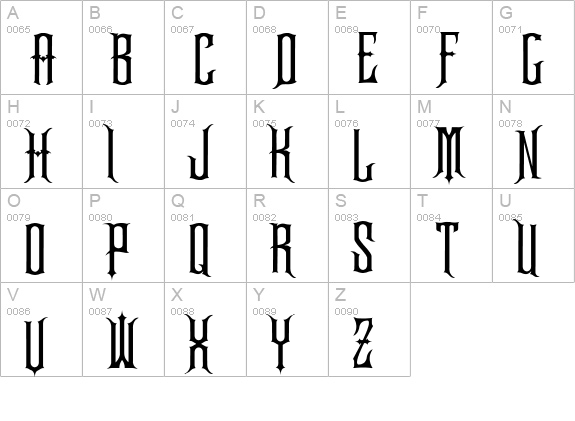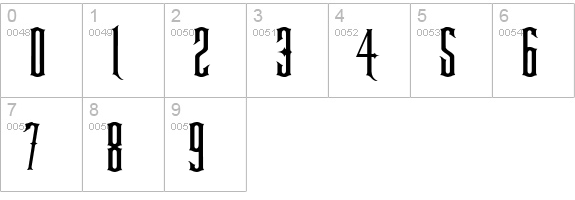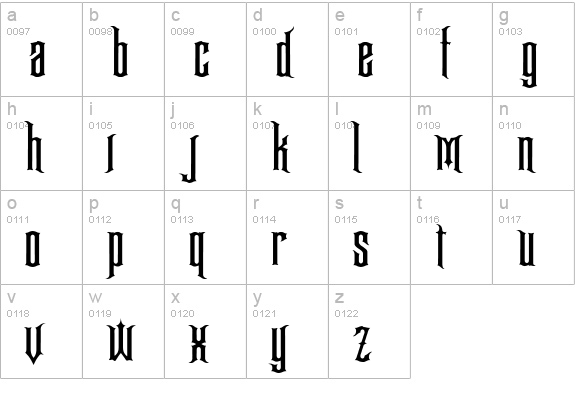
Disney Haunted Mansion 2 Regular is the standard, neutral variant in the Disney typeface family \xE2\x80\x94 well suited to general body text, paragraphs, and standard typographic work.